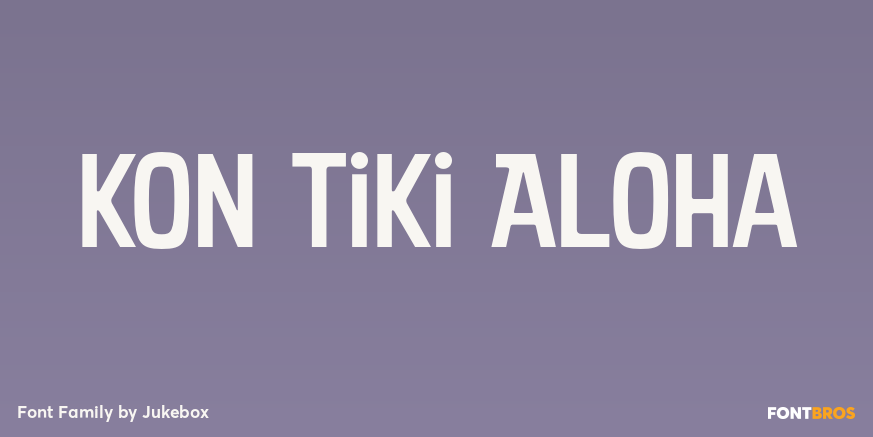
Kon Tiki Aloha
About Kon Tiki Aloha
Kon Tiki Aloha is one of a series of Kon Tiki fonts created to celebrate the culture and design style of mid 20th Century Hawaiian kitch. This font was actually inspired by the ad poster of a popular Hawaiian themed attraction, and contains 120 alternate…